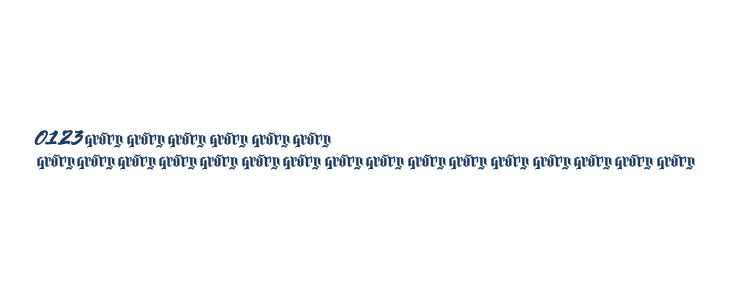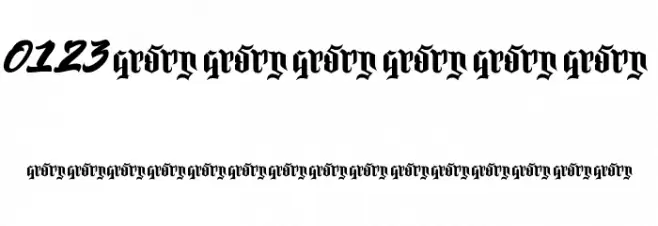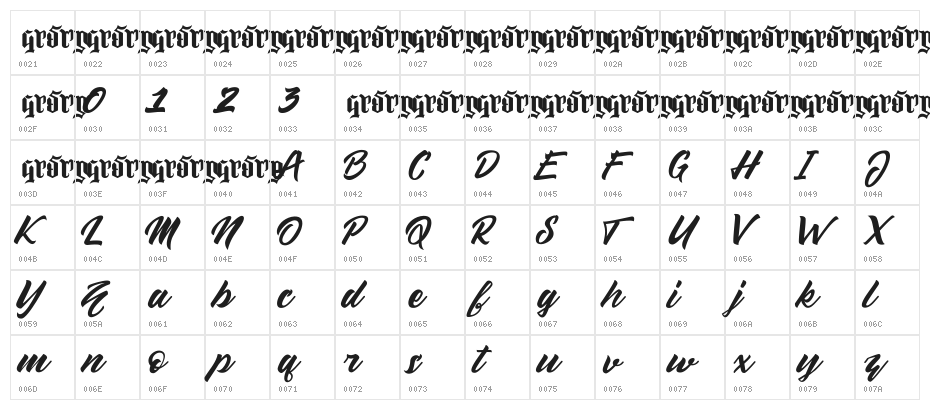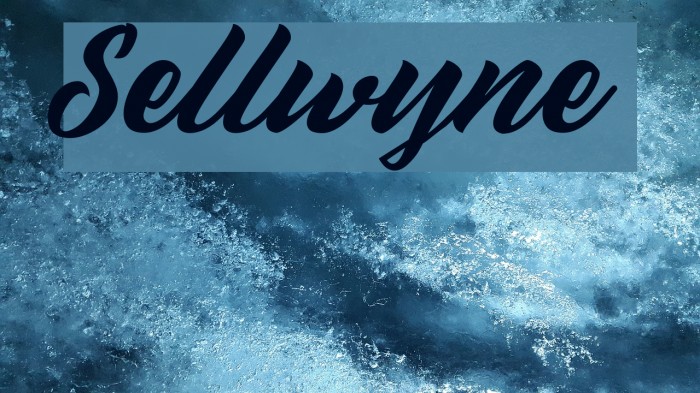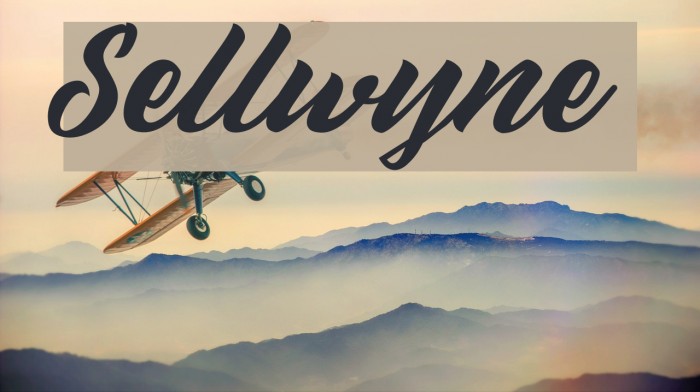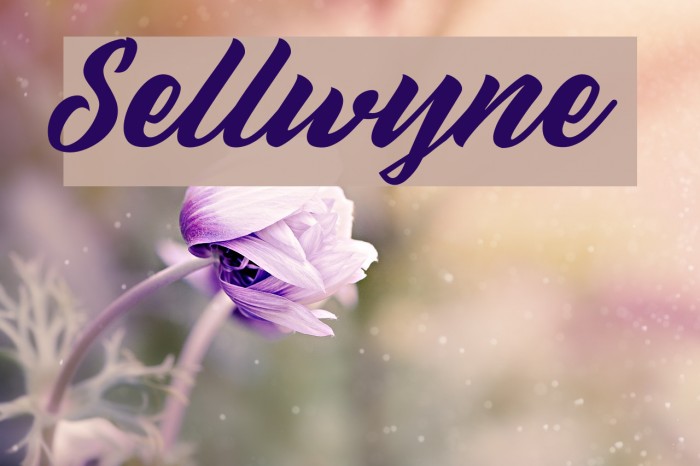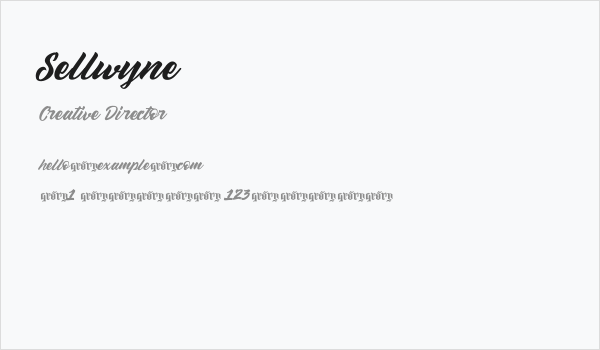
Sellwyne Font
Sellwyne Description
This font features a bold and expressive script style, characterized by its fluid, cursive strokes and dynamic movement. The uppercase letters exhibit a dramatic flair with sweeping curves and elegant loops, while the lowercase letters maintain a consistent flow with slightly more restrained flourishes. The numbers are styled to match the overall aesthetic, adding a cohesive look to any text. The font's design is reminiscent of traditional calligraphy, yet it maintains a modern edge, making it suitable for a variety of contemporary applications. Its high contrast between thick and thin strokes enhances readability while adding a touch of sophistication.
| Proposed Projects | Ideal for wedding invitations, branding projects, logo design, and elegant packaging. |